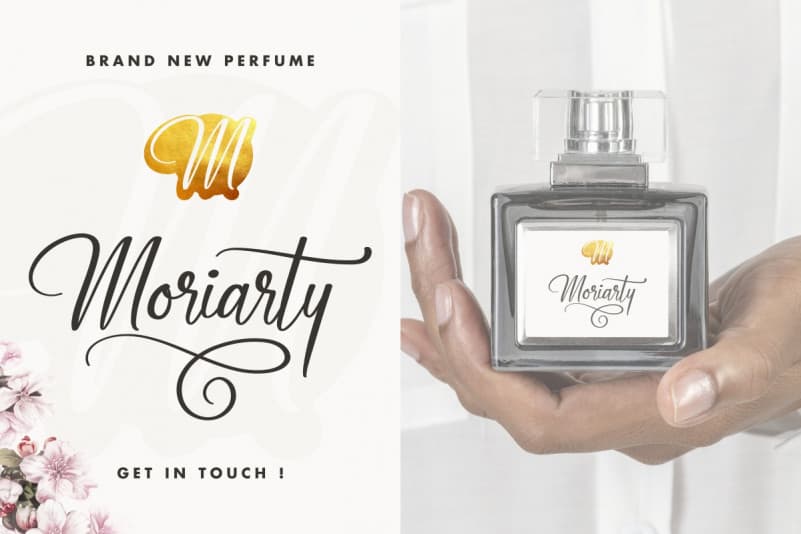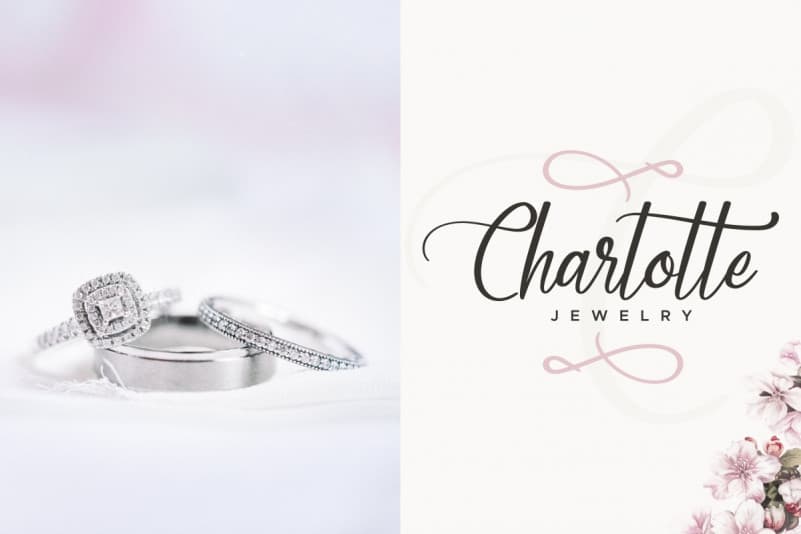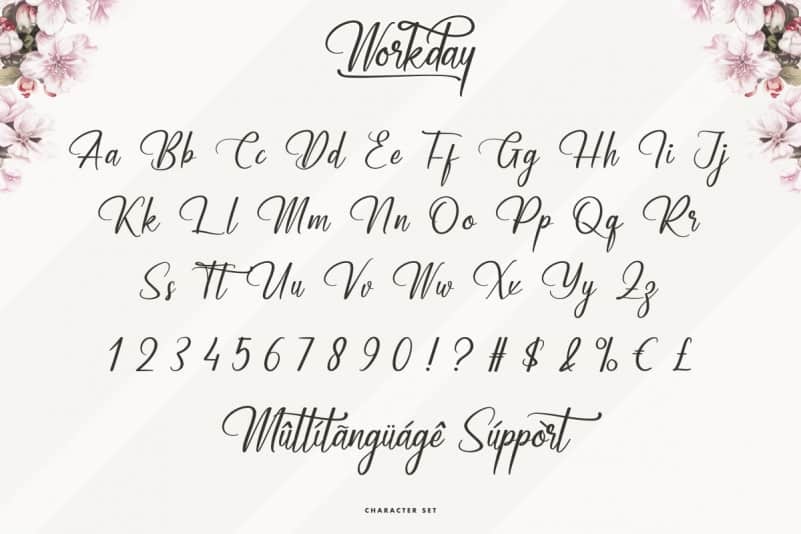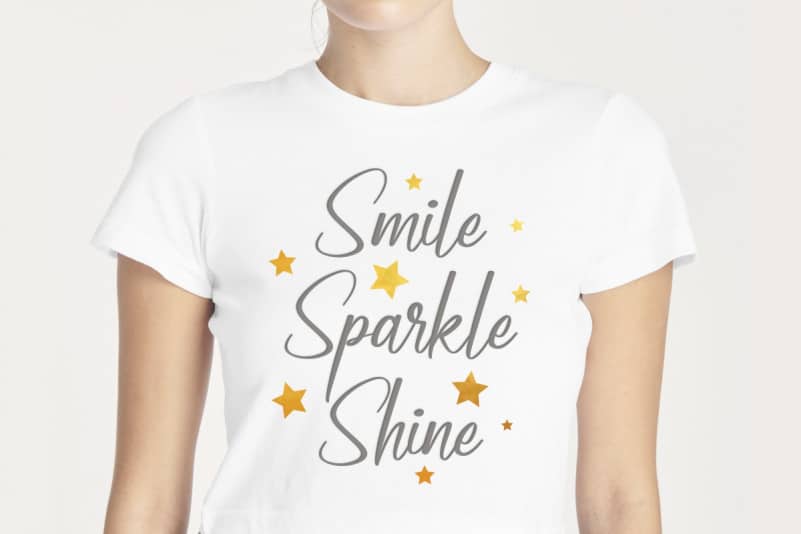
Workday Calligraphy Font
Workday Calligraphy Font is a Hand brush calligraphy font. The style of this font are casual, lovely, contemporary, modern, elegant, luxury and classic brush font.